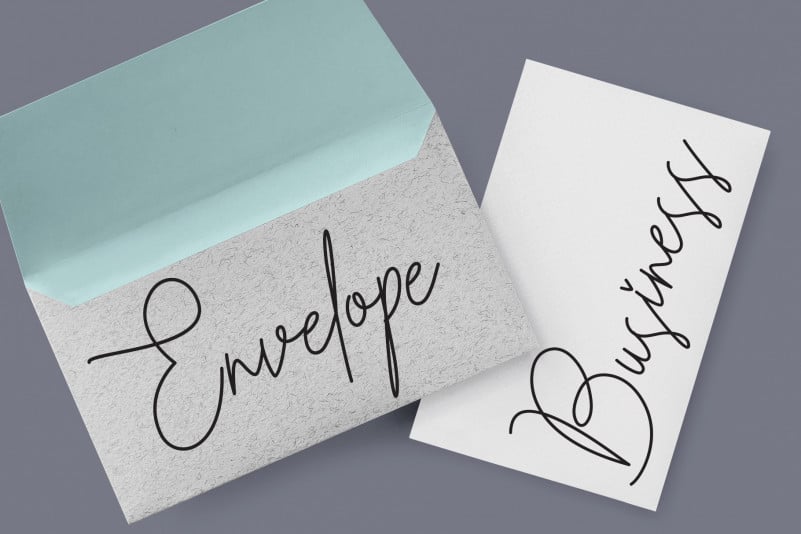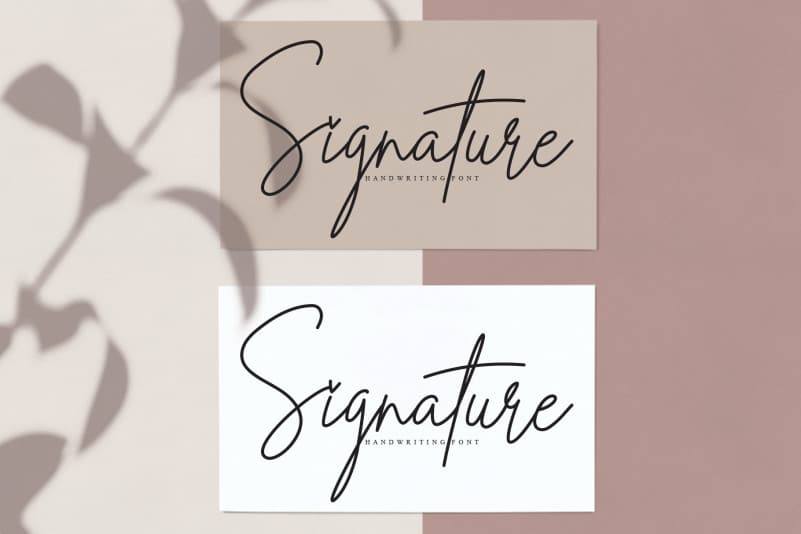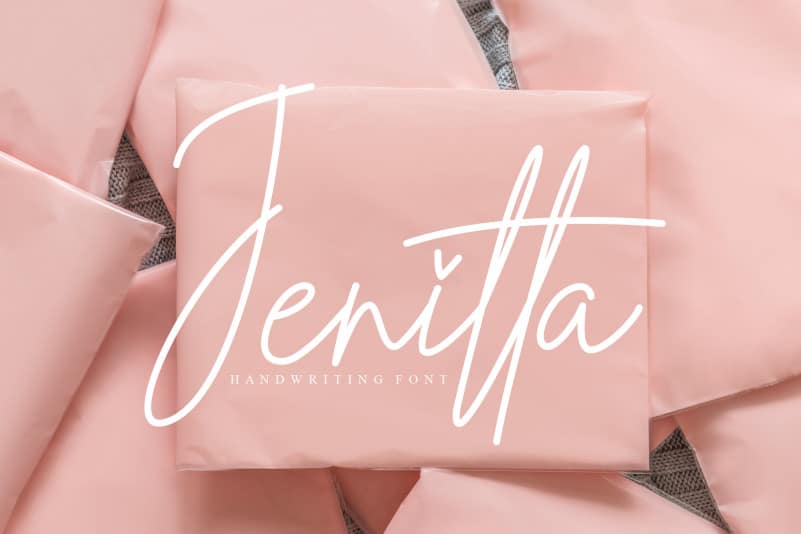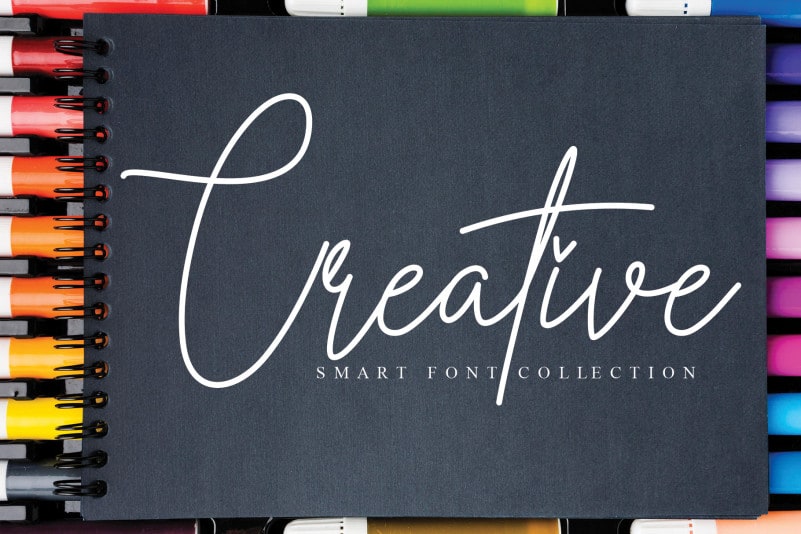
Hallenitta Handwritten Font
Introducing Hallenitta Handwritten Font. The latest style letters are perfect for wall displays, wedding invitations, social media post logos, advertisements, product packaging, product designs, labels, photography, watermarks, invitations, stationery, and any project that requires taste handwriting.